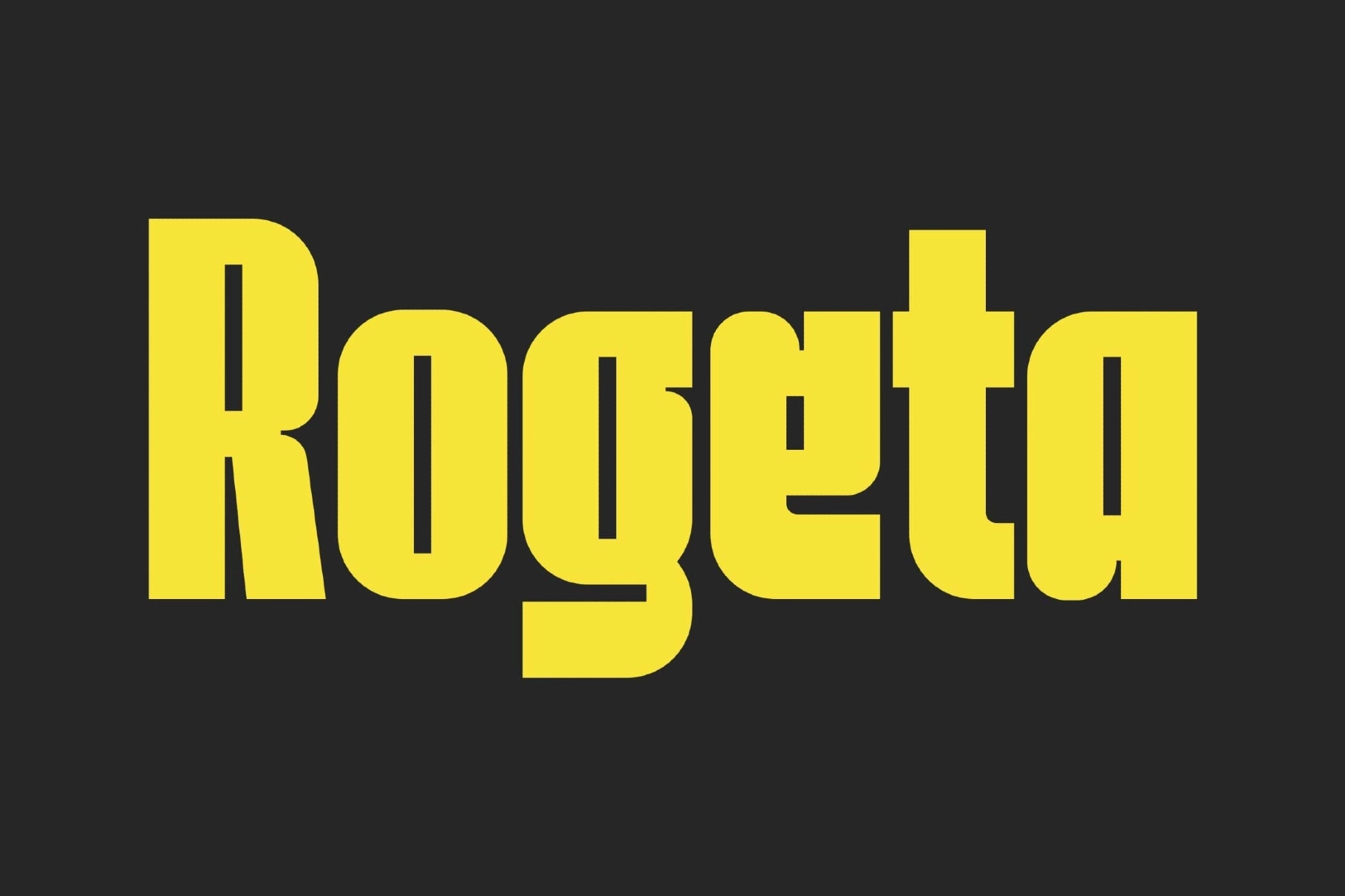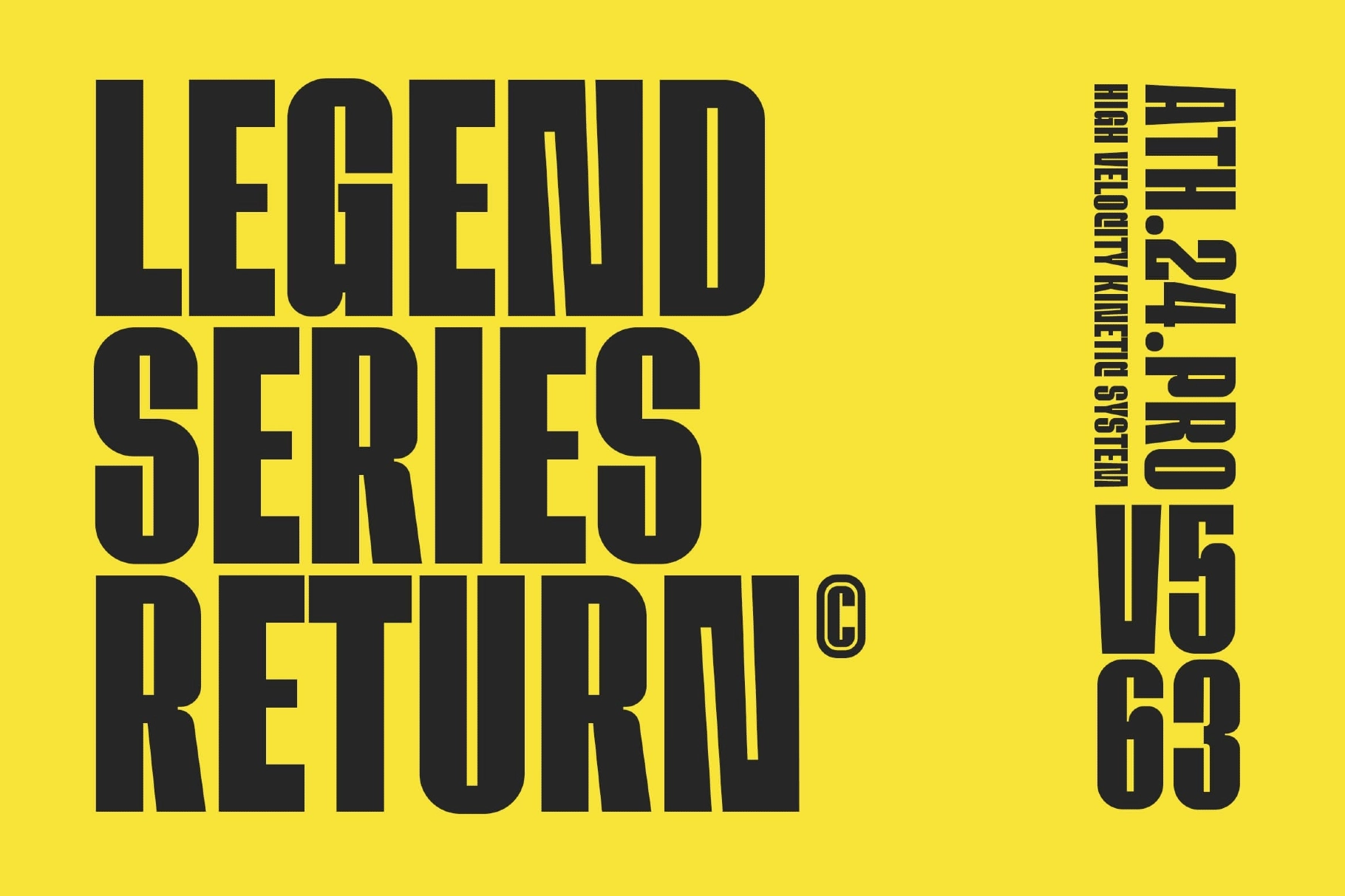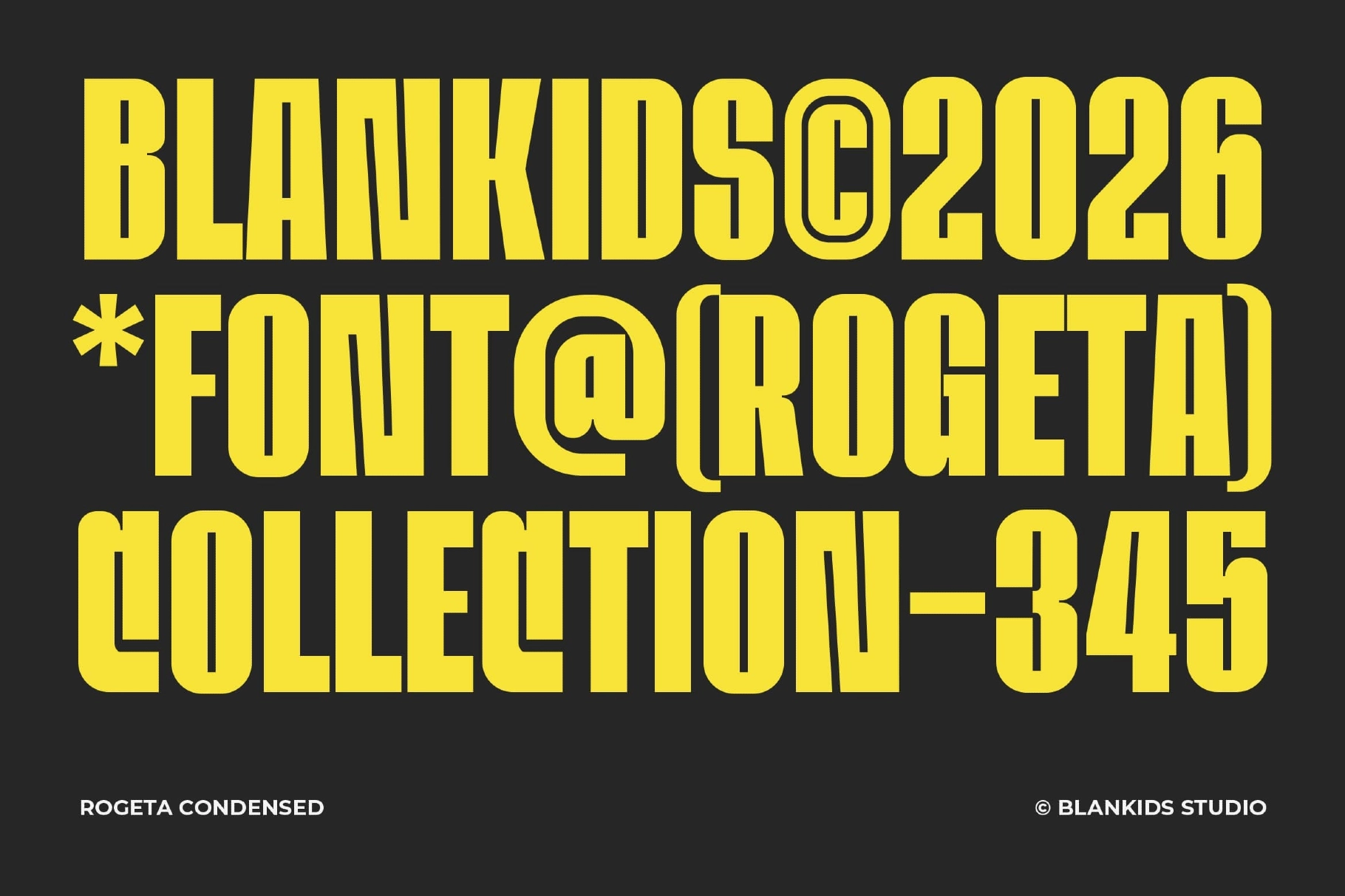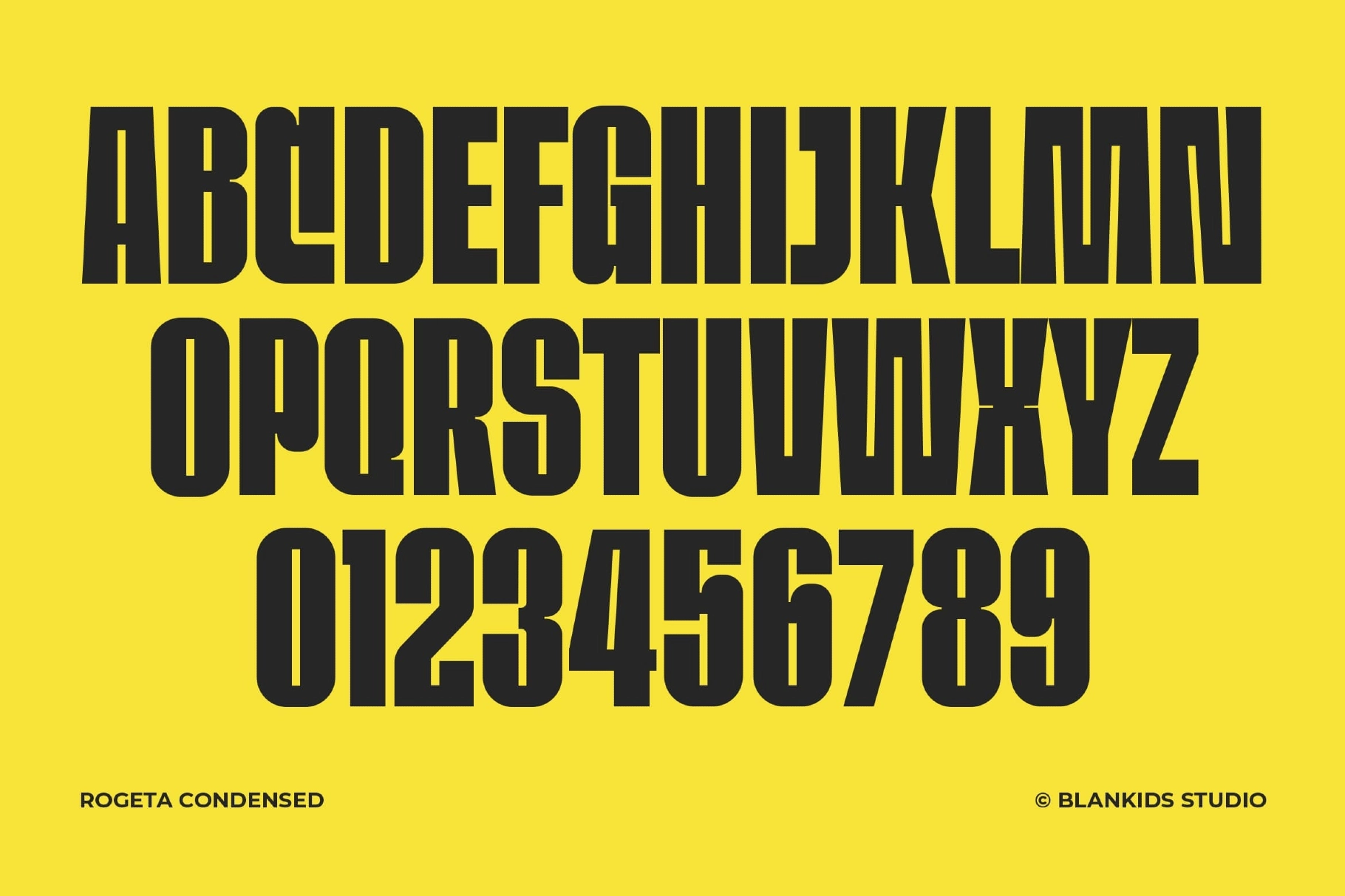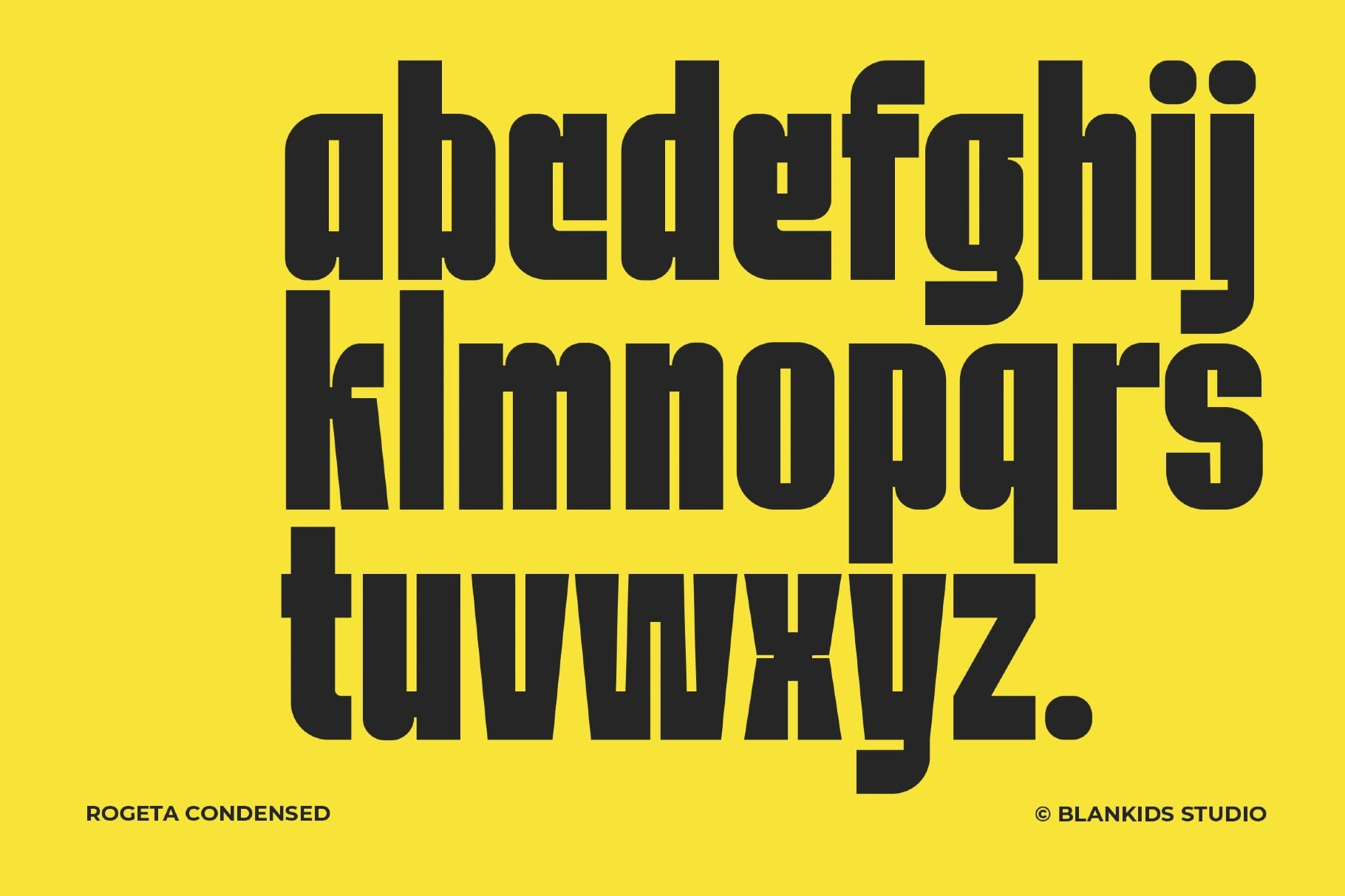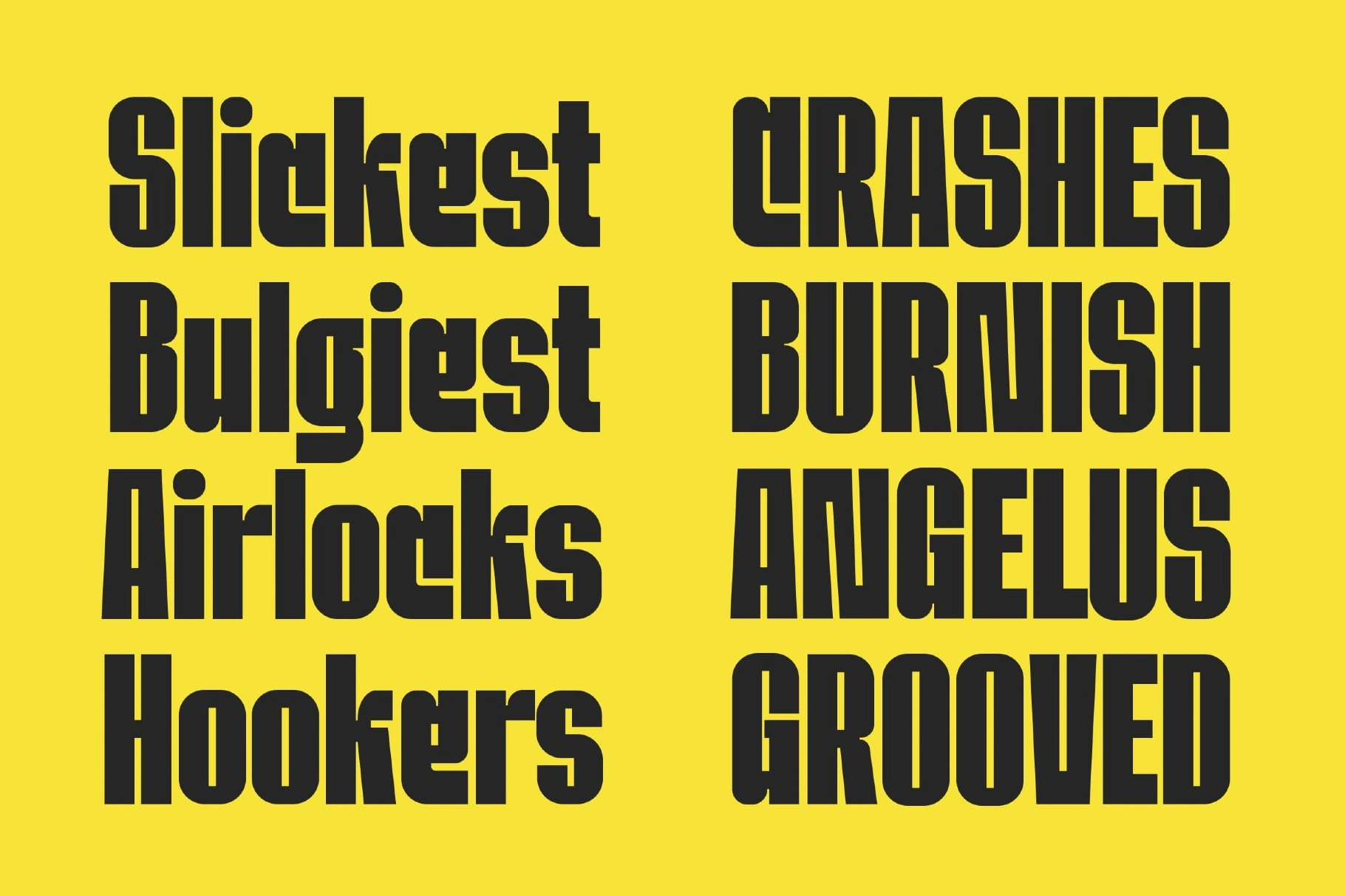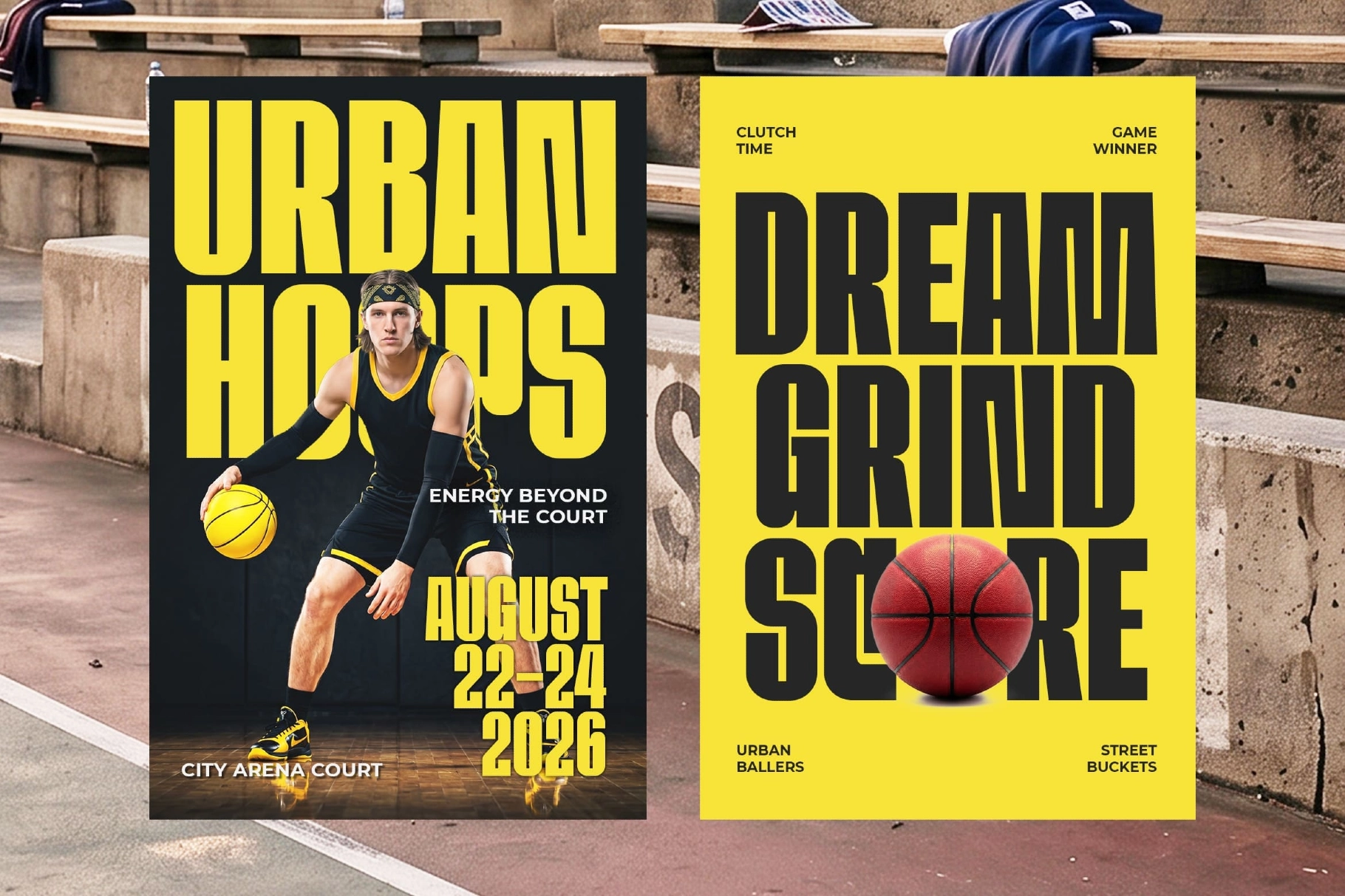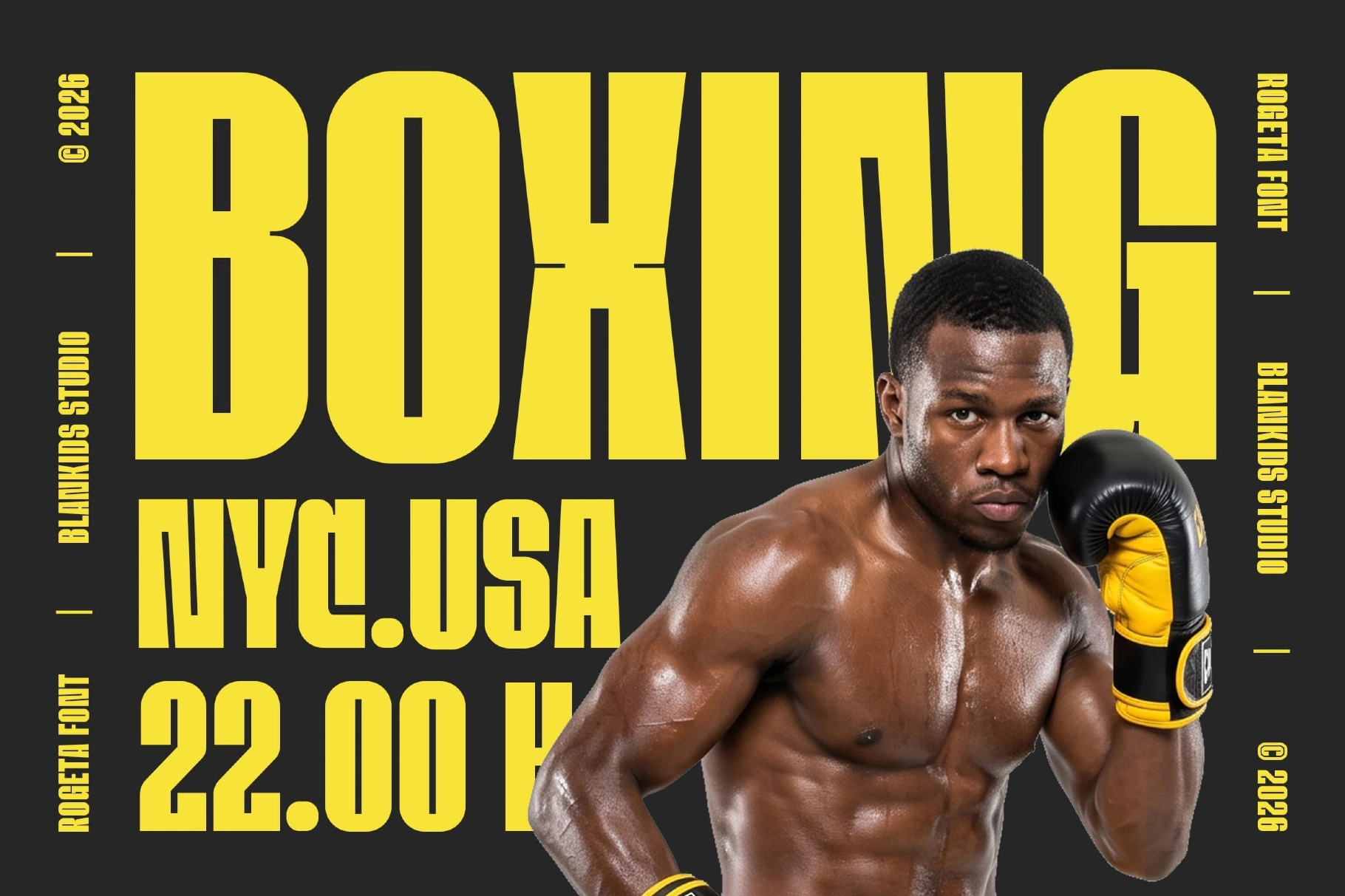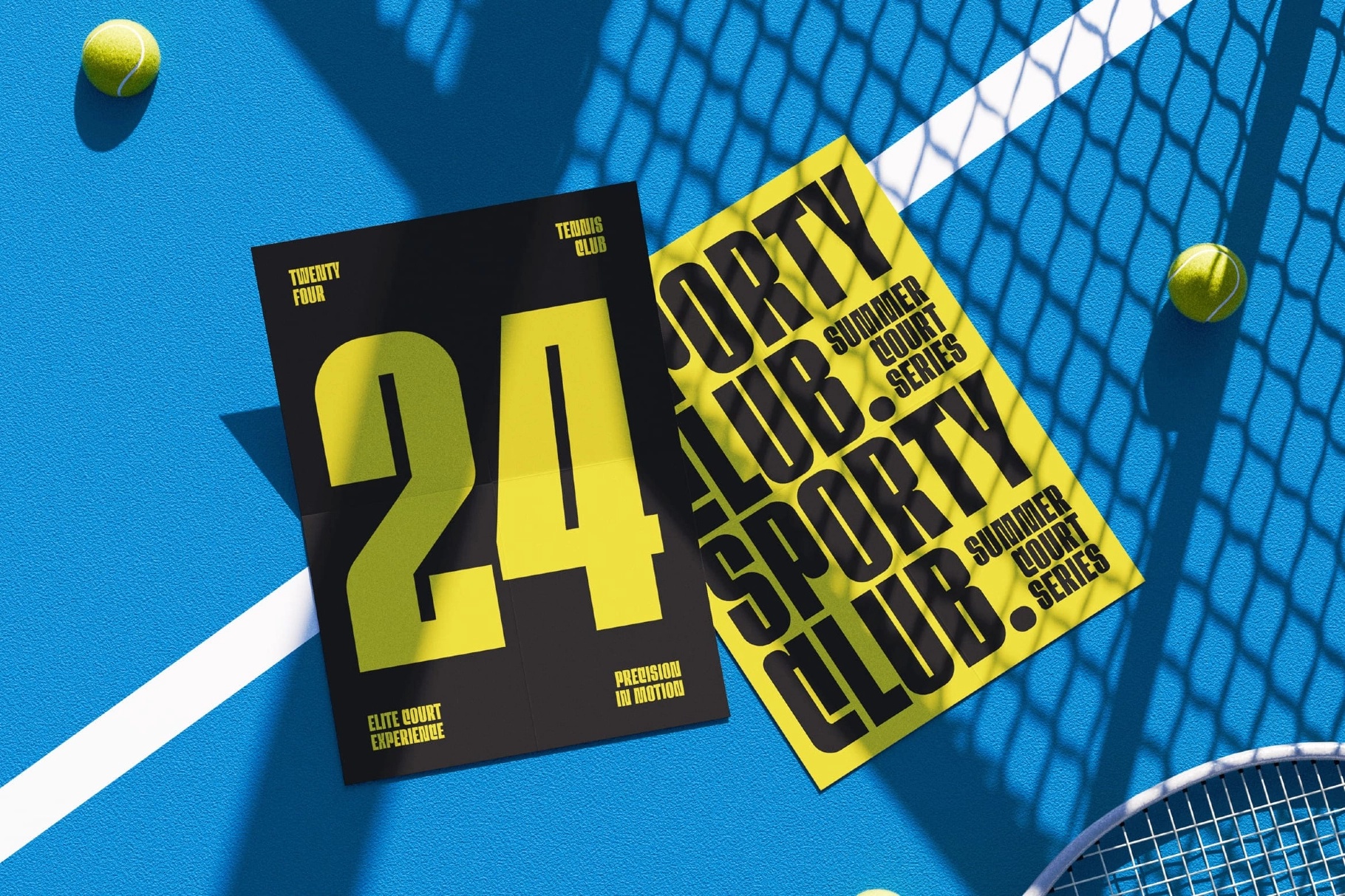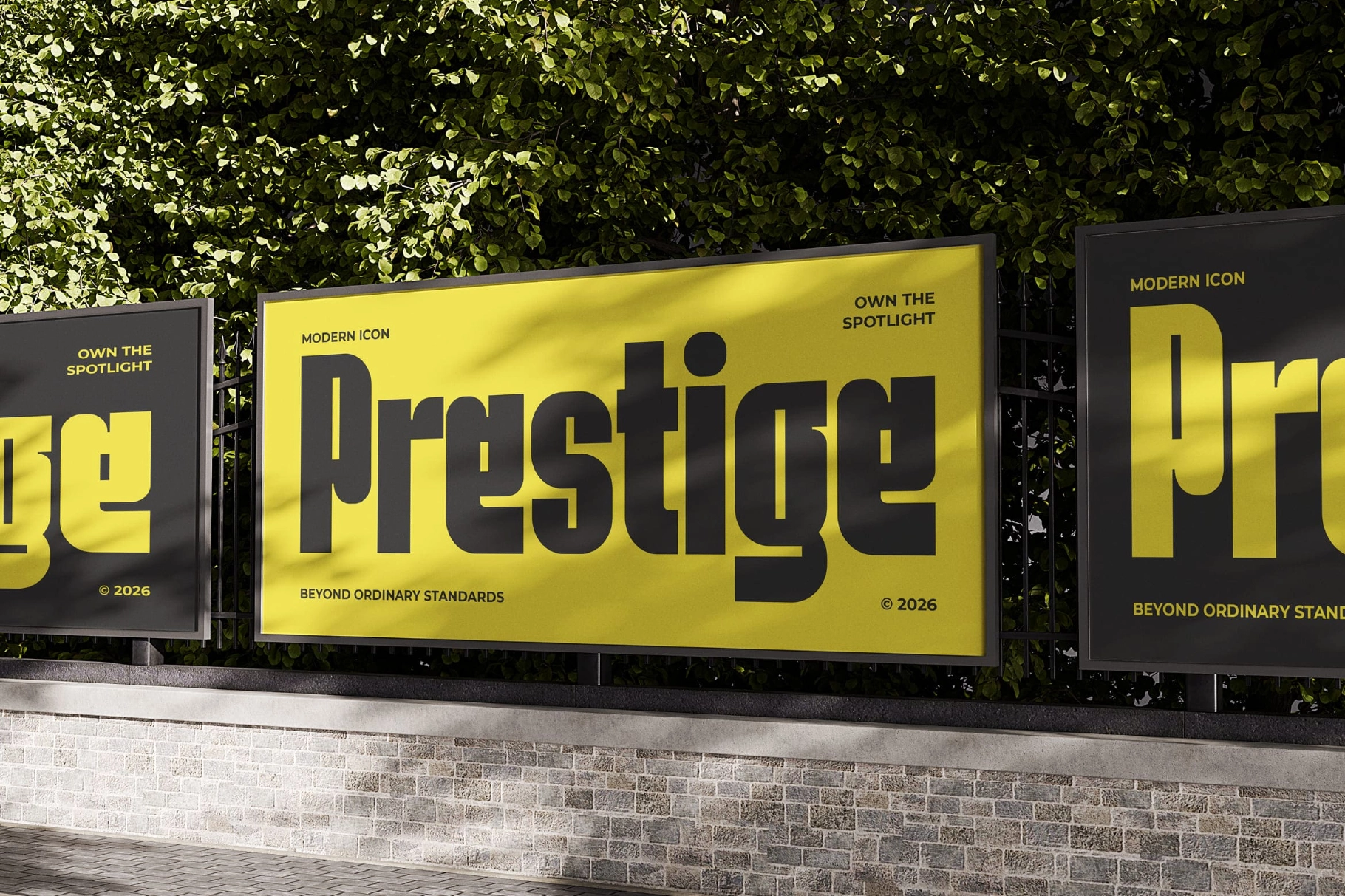
Rogeta - Bold Condensed Display Font
Rogeta stacks tall, block-built letterforms into a bold condensed display font built for maximum density at speed. Thick verticals and flat terminals push a motorsport-decal energy, closer to a race-car door number than a typeface built for paragraphs. Cutout counters in the G, R, and S carve out a signature silhouette, and the tight tracking lets a short word fill a whole banner without spilling past its edges.
Rogeta works best where type needs to dominate a small footprint — race numbers, team crests, gig posters, single-word slogans. It reads loud even at a glance, which makes it a natural fit for anything competing for attention on a crowded page or a moving vehicle. Use it for sports branding, streetwear graphics, album covers, event posters, packaging labels, esports team kits, and bold social headlines.